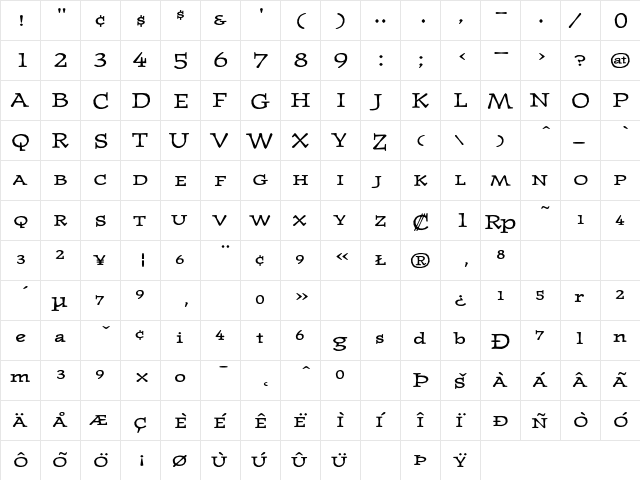
JournalSmallcaps-Ultra Ultra
Design Context for JournalSmallcaps-Ultra Typeface
JournalSmallcaps-Ultra is a composed and adaptable typeface that performs quietly and consistently across a wide range of design contexts.
Pro Tip: Use JournalSmallcaps-Ultra in both headline and body roles to test its range before committing to a single application.